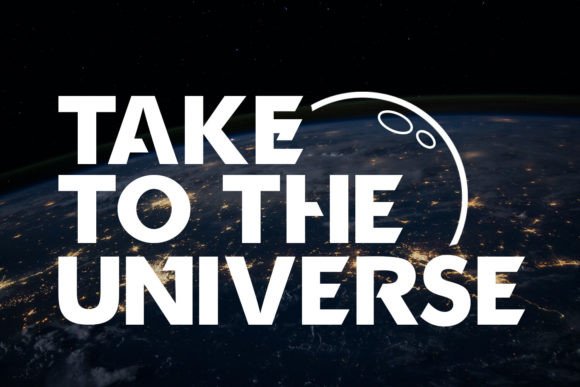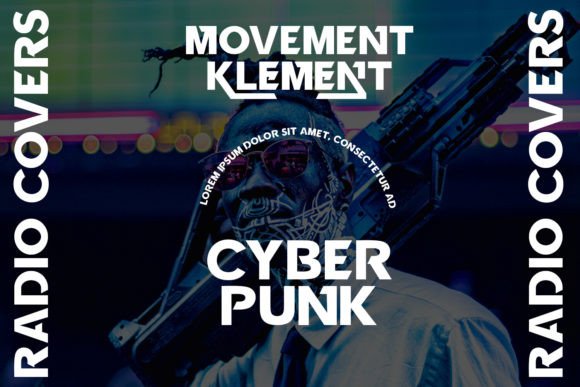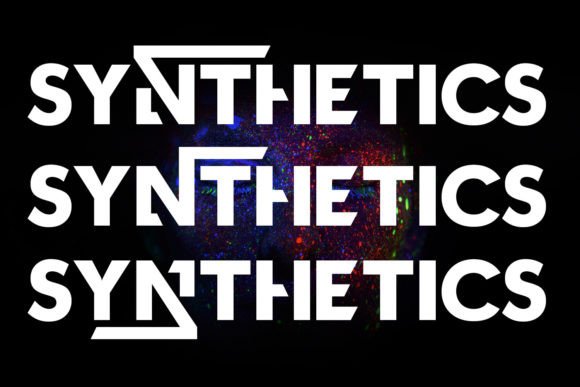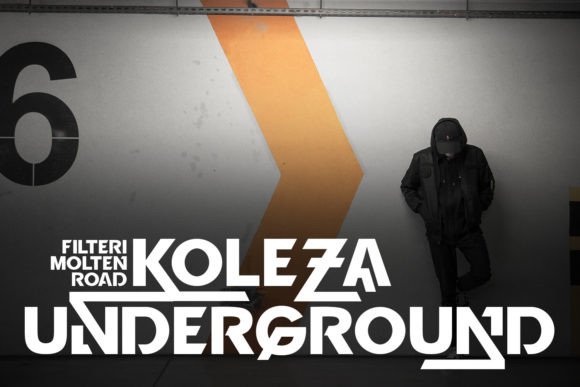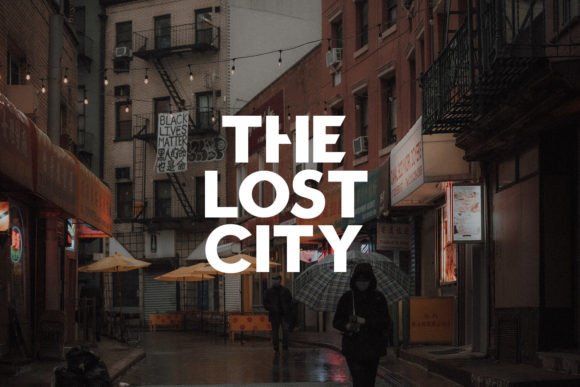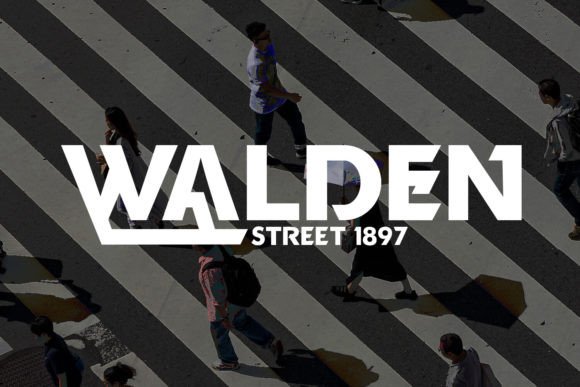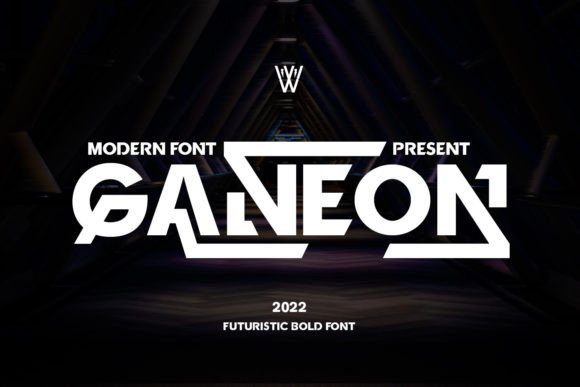
Ganeon Font: A Futuristic Typeface with Luxurious Elegance
Ever seen a futuristic font with an interesting alternate? Look no further than GANEON, a stunning typeface that combines elegance with a futuristic form. This beautiful font is perfect for designers and crafters looking to add a touch of luxury and class to their designs.
The Futuristic yet Luxurious Design of Ganeon
GANEON is a unique typeface that seamlessly blends futuristic elements with luxurious and classy features. Its sleek and modern design makes it perfect for a wide range of applications, from branding and design templates to invitations, calendars, posters, headlines, brochures, promotional tools, and editorial designs.
The font’s futuristic design is characterized by its clean lines, geometric shapes, and a sense of technological advancement. At the same time, its luxurious and classy features add a touch of sophistication and elegance, making it perfect for high-end designs.
Key Features of Ganeon Font
GANEON comes with a range of exciting features that make it a versatile and practical choice for designers and crafters. Some of its key features include:
• Alternate Characters: GANEON features interesting alternate characters that allow designers to add a unique touch to their designs.
• Wide Range of Applications: The font is suitable for a wide range of applications, including branding, design templates, invitations, calendars, posters, headlines, brochures, promotional tools, and editorial designs.
• Multilingual Support: GANEON supports multiple languages, making it a great choice for designers working on international projects.
Uses of Ganeon Font
GANEON is a versatile font that can be used in a variety of design projects. Here are some of the ways designers and crafters can use this beautiful typeface:
• Branding: Use GANEON to create a unique and memorable brand identity that stands out from the crowd.
• Design Templates: The font is perfect for creating stunning design templates for social media, presentations, and other digital applications.
• Invitations: Add a touch of luxury and elegance to your invitations with GANEON.
• Posters and Headlines: Use the font to create eye-catching posters and headlines that grab attention.
• Editorial Designs: GANEON is a great choice for editorial designs, such as magazines, newspapers, and books.
Why Choose Ganeon Font?
There are many reasons why designers and crafters should choose GANEON for their design projects. Here are some of the benefits of using this font:
• Unique Design: GANEON features a unique and futuristic design that sets it apart from other fonts.
• Versatility: The font is versatile and can be used in a wide range of design projects.
• Ease of Use: GANEON is easy to use and comes with a simple and intuitive design.
• High-Quality: The font is of high quality and is perfect for professional design projects.
In conclusion, GANEON is a stunning typeface that combines futuristic elements with luxurious and classy features. Its unique design, versatility, and ease of use make it a great choice for designers and crafters looking to add a touch of elegance and sophistication to their designs. Whether used for branding, design templates, invitations, calendars, posters, headlines, brochures, promotional tools, or editorial designs, GANEON is a font that is sure to meet the visual needs of technological development.